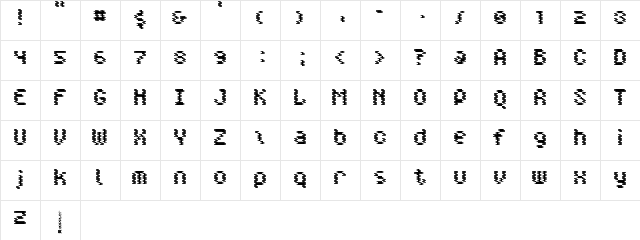
Complete Doppler A Regular glyph index. Displaying only characters natively supported by Doppler A Regular font.
Doppler A is a composed and adaptable typeface that performs quietly and consistently across a wide range of design contexts.